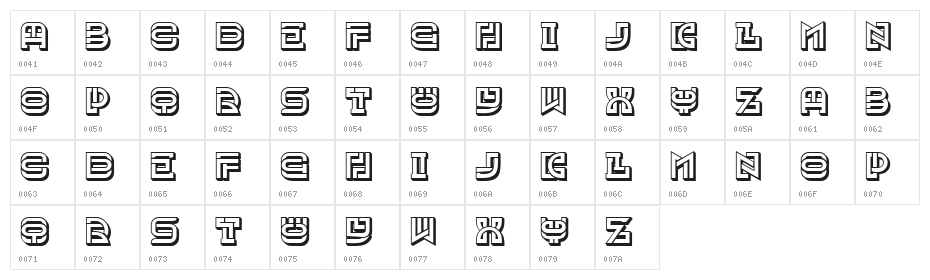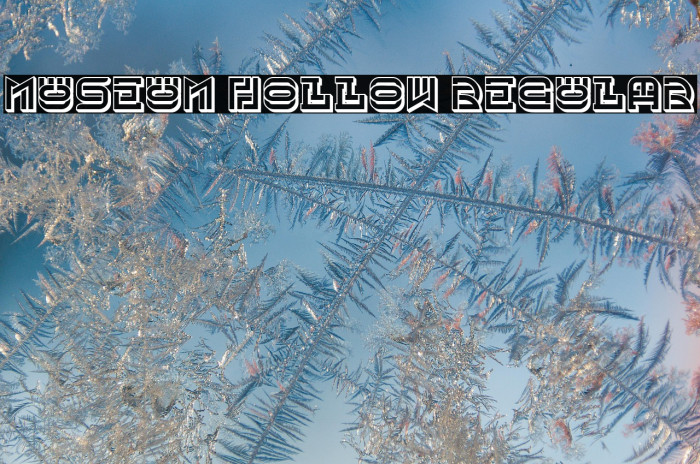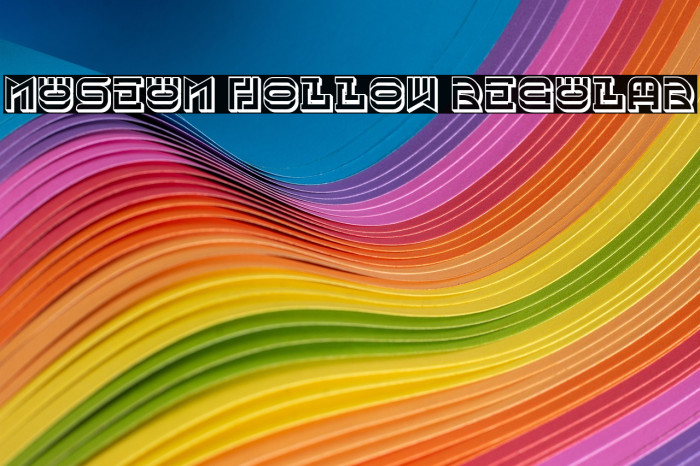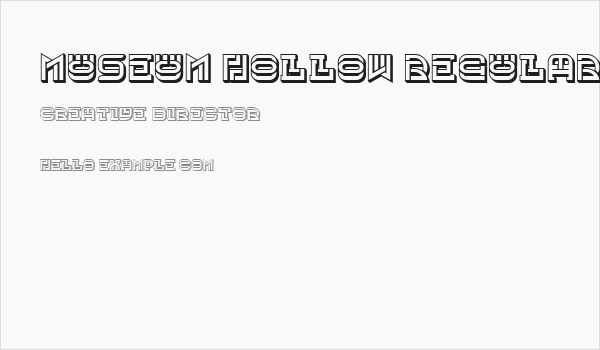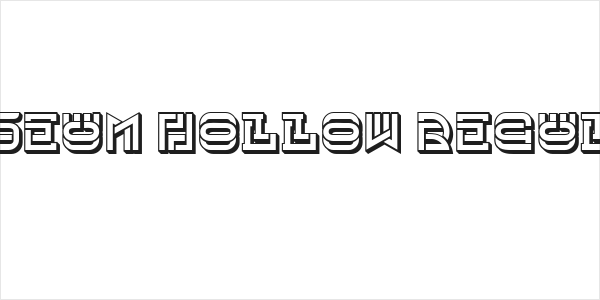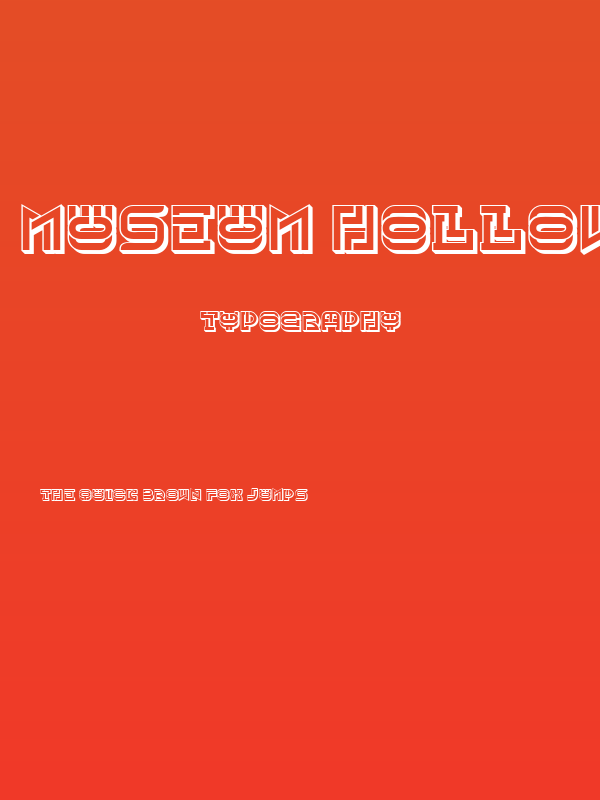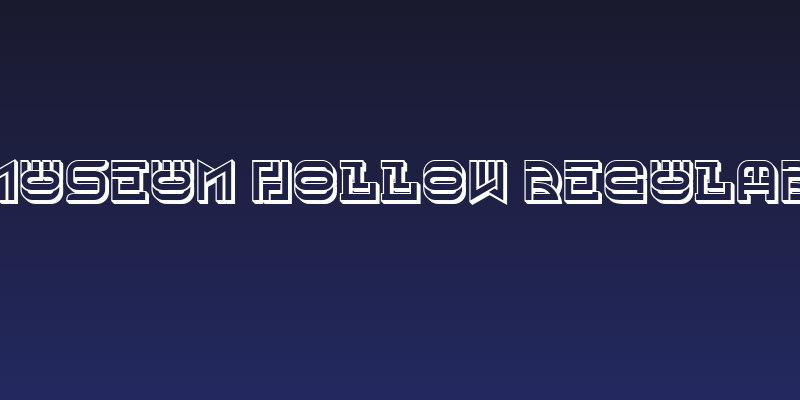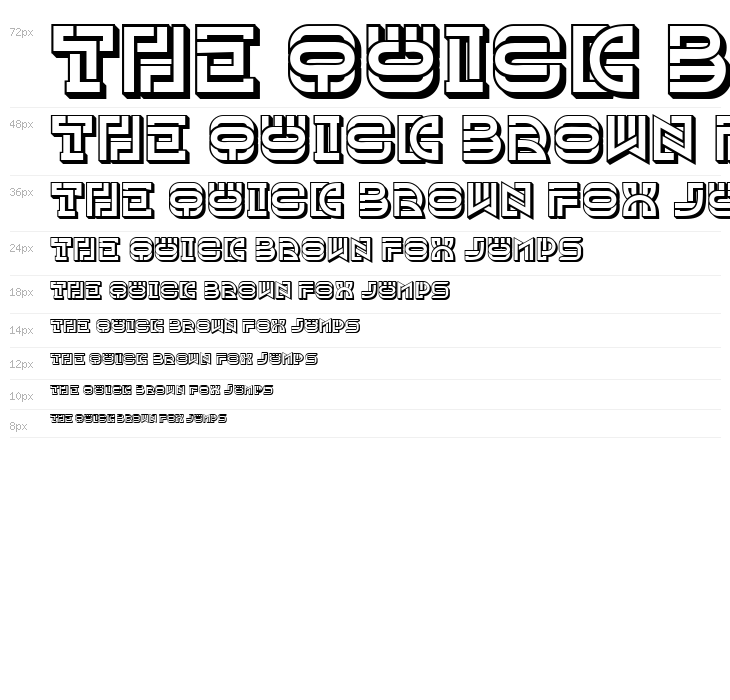
Museum Hollow Regular Font
Museum Hollow Regular Description
This font features a bold, hollow design with a geometric and futuristic aesthetic. The uppercase letters are characterized by their thick outlines and unique, angular shapes that create a sense of depth and dimension. The font's structure is consistent, with each letter maintaining a uniform width and height, contributing to a cohesive look. The hollow nature of the letters allows for creative use of negative space, making it ideal for eye-catching designs. The font's style is both modern and decorative, suitable for projects that require a standout, artistic touch.